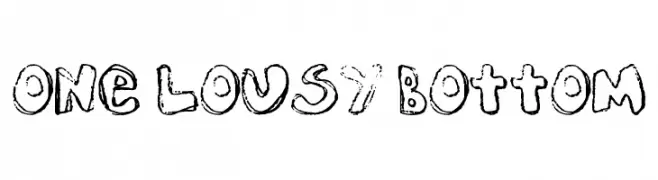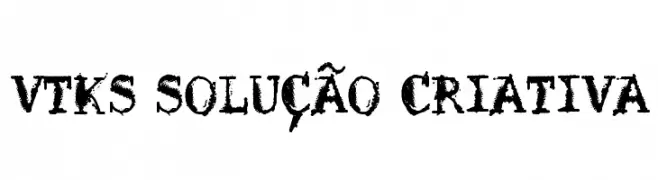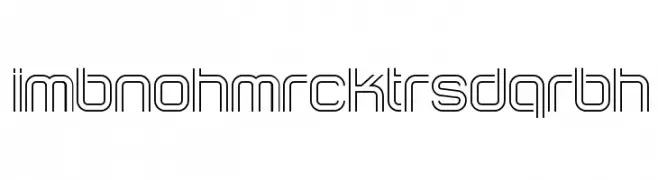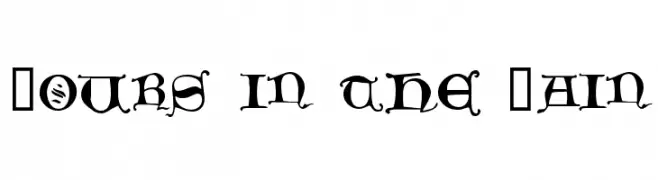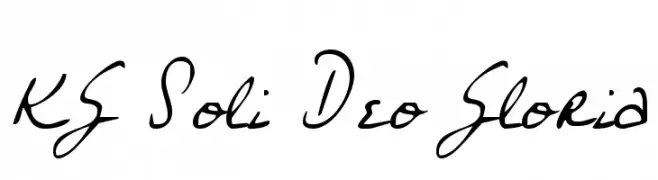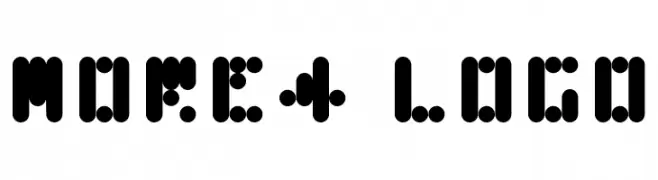
A playful, hand-drawn font with a bold, distressed appearance.
A distressed, grungy font with rough edges and a bold, vintage appearance.
A modern, geometric font with a triple-line structure and rounded edges.
A Gothic-style font with intricate serifs and decorative elements.
A bold, geometric font with a modern and futuristic design.
A dynamic and flowing script font with elegant, interconnected strokes.